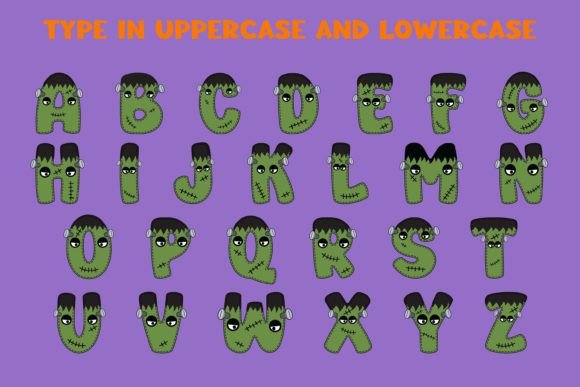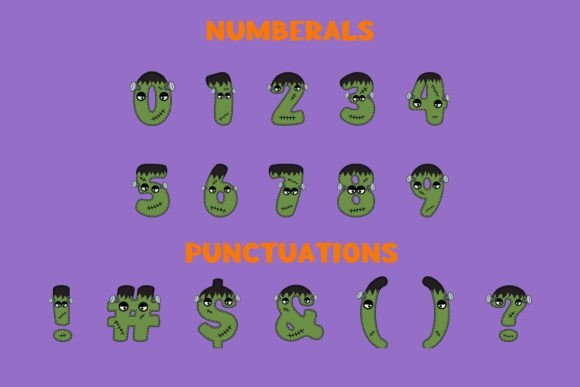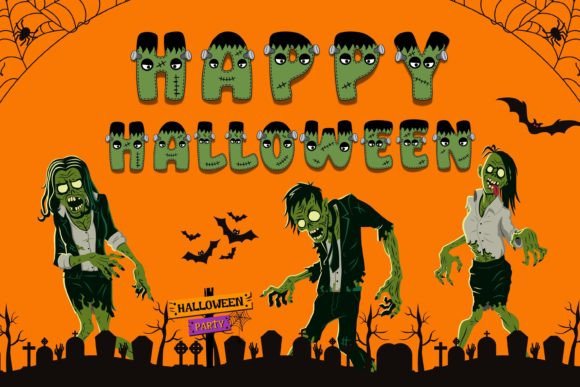
Introduction to Halloween Franken Font
Introducing Halloween Franken, a vivid and playful color font that brings a touch of enchantment to every Halloween-themed design.
Its captivating character effortlessly melds with t-shirt designs, digital imprints, craft creations, decorative cards, and extensive projects Halloween Franken arrives in three variations: OTF, TTF, and WOFF color font, ensuring complete convenience and flexibility.